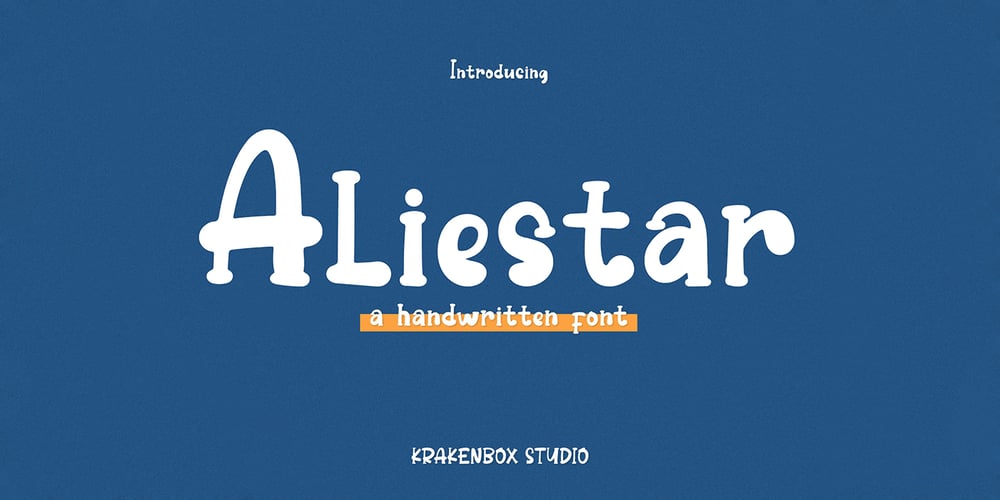
Aliestar Font Family was designed by Yahdi Kumala and published by Krakenbox Studio. Aliestar contains 1 styles and family package options. This font feels equally charming and elegant. It looks stunning on wedding invitations, thank you cards, quotes, greeting cards, logos, business cards and every other design which needs a handwritten touch. It is also PUA encoded which means you can access all of the glyphs and swashes with ease!